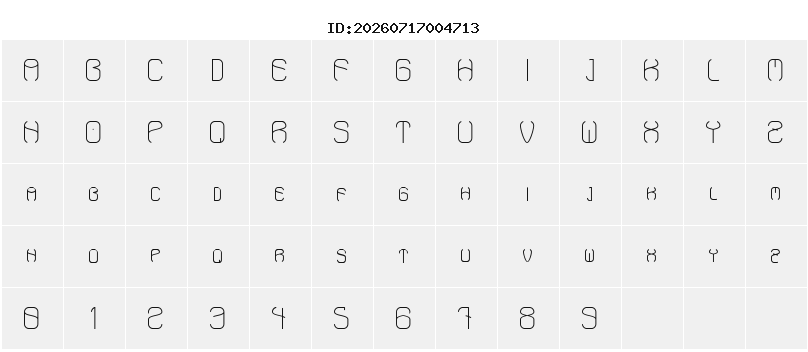
Aaron Std Preview
• Font Name: Aaron Std
• Full Font Name: Aaron Standard
• Designer: Milan Walker
• Manufacturer: Milan Walker
Aaron Std.ttf is a modern, elegant sans-serif font designed for ultimate readability and visual harmony. Perfect for branding, headlines, web design, and print materials.